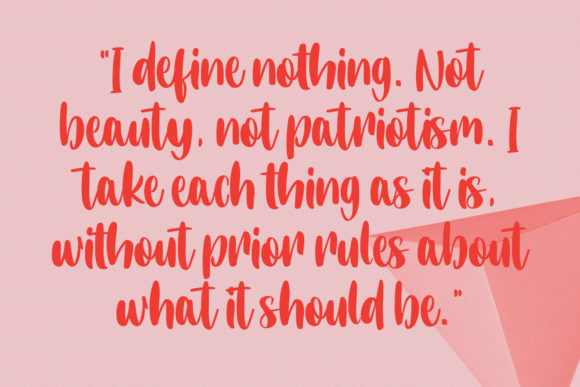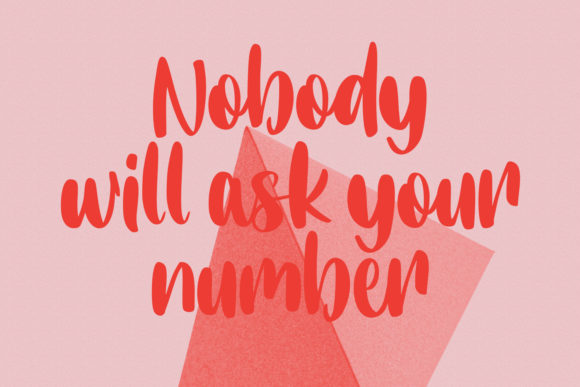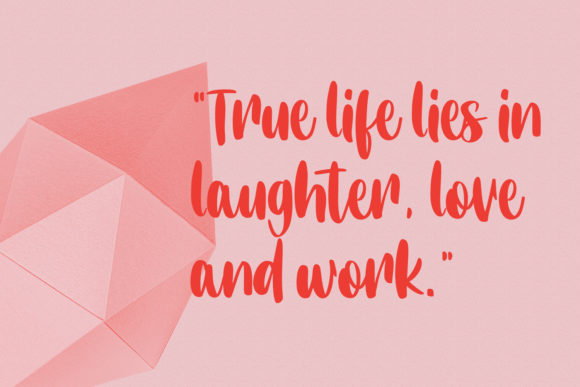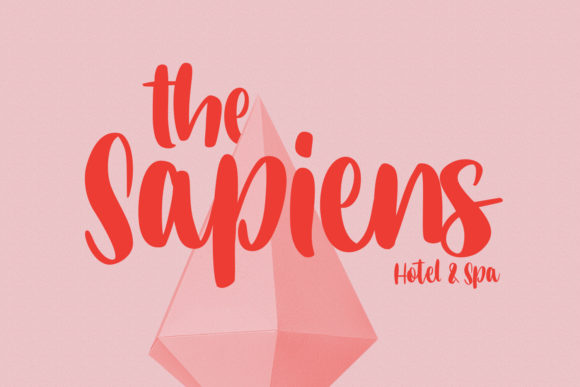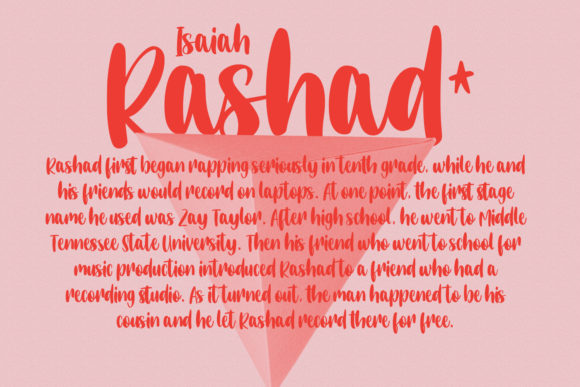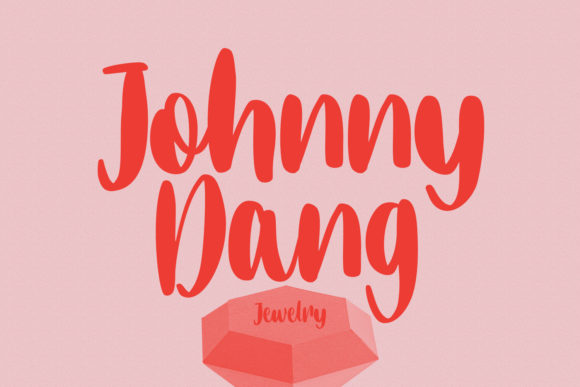
Introduction to Baldorty Font
Have you ever stared at a blank canvas, waiting for inspiration to strike? For designers, that moment is a familiar feeling, and the right font can be the spark that sets the creative project ablaze. When it comes to adding a touch of elegance and sophistication to your designs, the Baldorty Font is an excellent choice.
This high-quality script font boasts clean and contemporary characters, perfect for creating a modern and stylish look. With its medium contrast strokes and fun characters, the Baldorty Font is an excellent resource for designers looking to add a touch of personality to their designs. Plus, its transparent background makes it a great option for creative projects where you want your design to shine.
Key Features of Baldorty Font
• High-quality typography with a unique and creative design, making it perfect for a wide range of creative projects.
• Transparent background, allowing for seamless integration into various design elements and backgrounds.
• Unique characteristics include its elegant and modern design, making it perfect for use in branding, logos, and other creative projects.
Honest Review: Baldorty Font
I recently had the chance to work with the Baldorty Font and I must say, it’s a fantastic addition to any design resource. With a transparent background, this font is perfect for creative projects that require a clean and minimalist look.
• ✨ High-quality design that’s perfect for body text and headings.
• ✨ Excellent legibility, making it easy to read even at smaller font sizes.
• ⚠️ Limited character set, which might be a concern for designers who need to support multiple languages.
• ⚠️ Not ideal for use as a display font, as it can look a bit plain at larger sizes.
Overall, I’m impressed with the Baldorty Font. It’s a solid choice for designers who need a high-quality font for their creative projects. While it may not be perfect, it’s definitely worth considering as a design resource.
For a high-quality design, use the Baldorty Font on a transparent background to give your text a clean and modern look. This font is perfect for creative projects that require a unique and stylish touch.